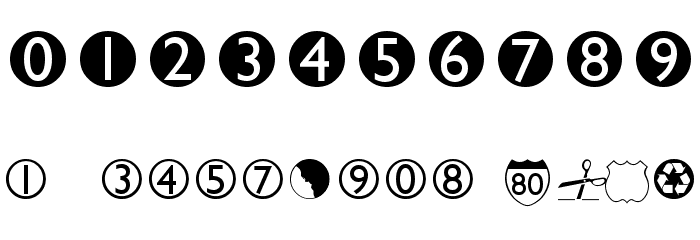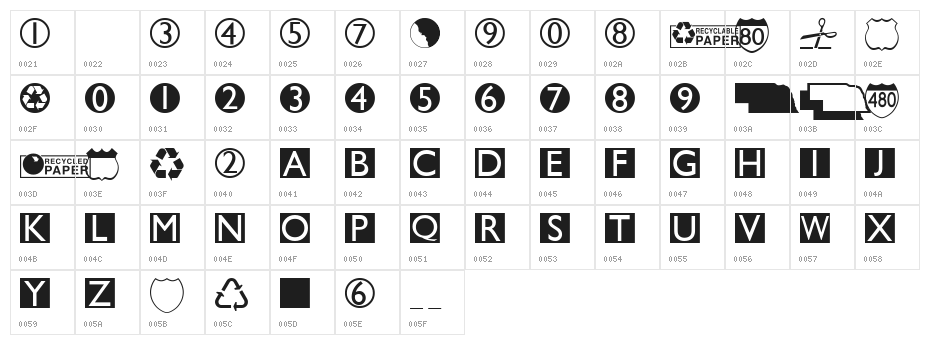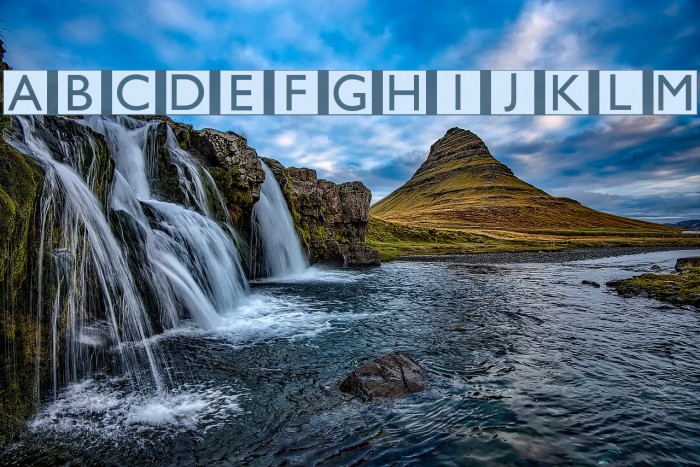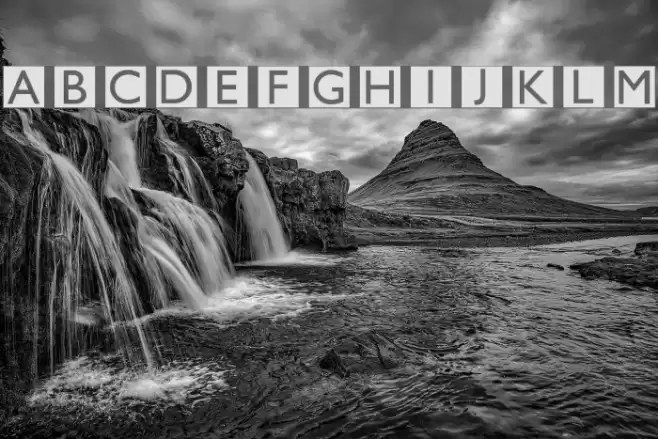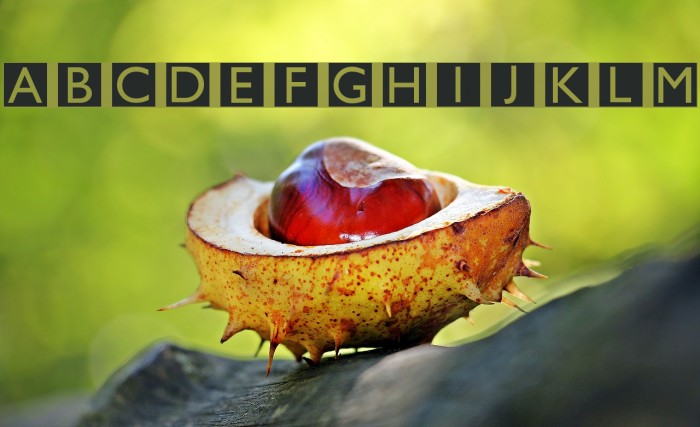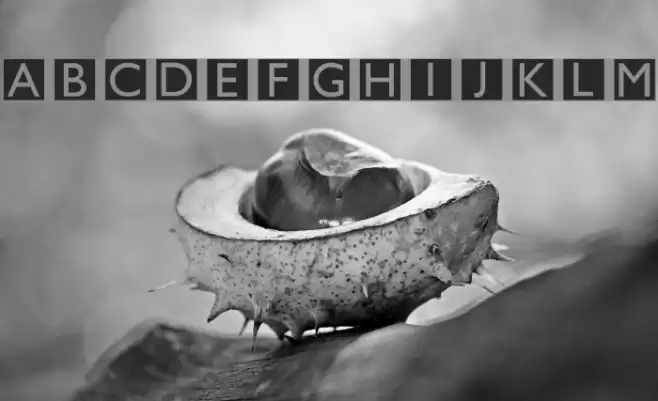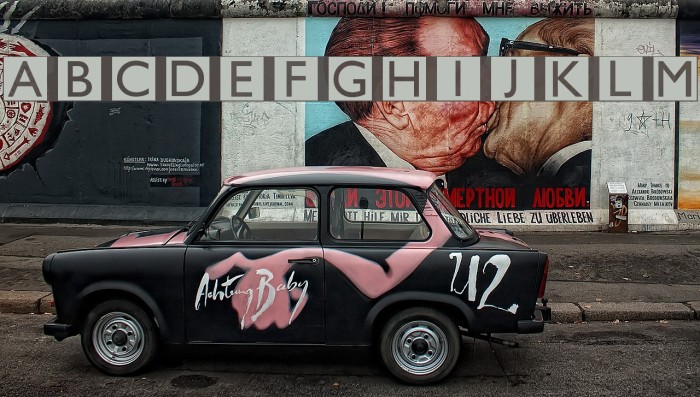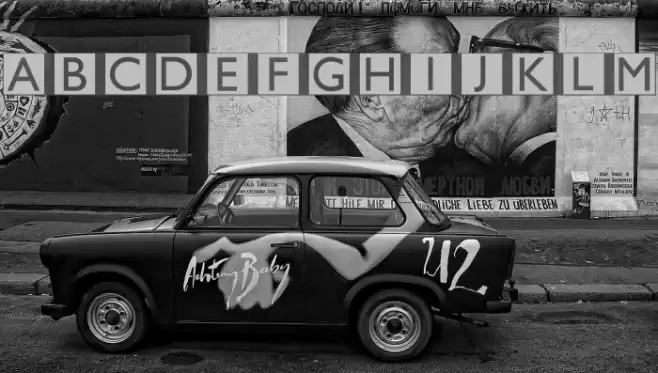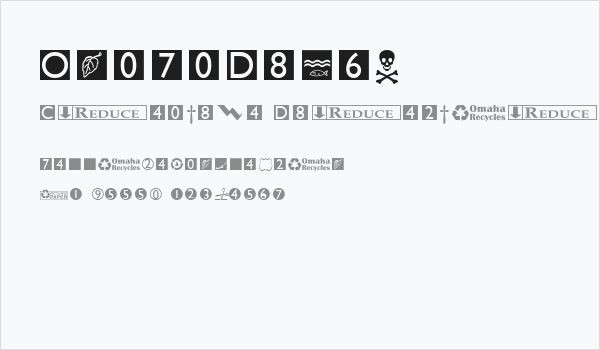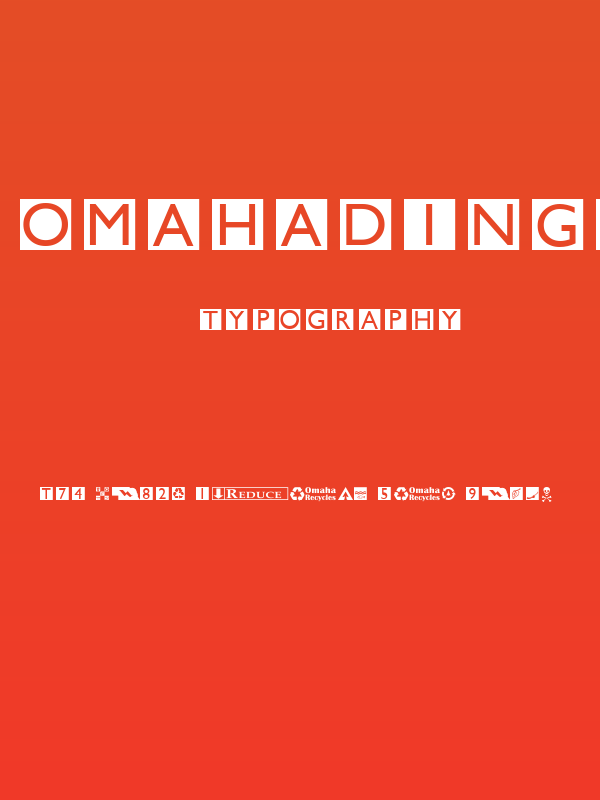
OmahaDings Font
OmahaDings Description
This font is a decorative display typeface featuring bold, block-style letters and numbers enclosed in squares and circles. It includes a variety of symbols and icons, such as recycling symbols, arrows, and other environmental and utility-themed graphics. The design is highly stylized, with a strong emphasis on geometric shapes and a modern aesthetic. The characters are evenly spaced, providing a uniform and structured appearance. This font is ideal for projects that require a bold and eye-catching visual impact, particularly in themes related to sustainability, recycling, or urban environments.
| Use Case | Logos, Posters, Headlines |
| Proposed Projects | Ideal for eco-friendly branding, recycling campaigns, urban-themed posters, and educational materials on sustainability. |